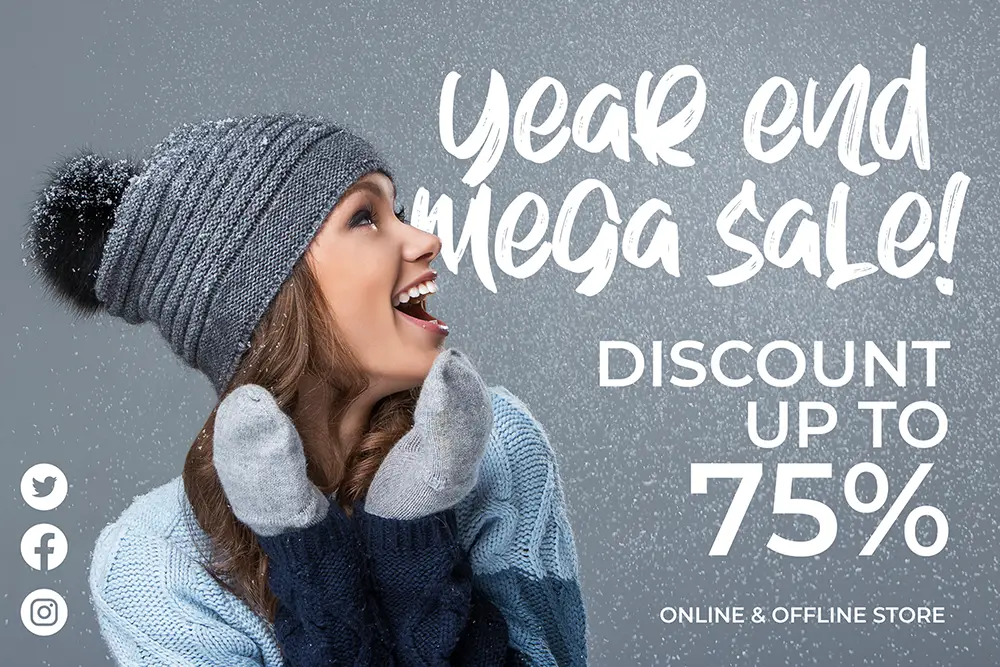
Every season tells a story — snowflakes in winter, blossoms in spring, golden leaves in autumn. But when your Seasonal Event Flyers don’t capture that story through design and typography, your message risks fading into the crowd.
For designers, freelancers, and brand owners, flyers are the heartbeat of every seasonal campaign — they’re fast, emotional, and designed to convert. The challenge? Picking fonts that match the spirit of the season while keeping your brand voice consistent. The right typography turns simple text into a visual invitation — one that feels like the event itself.
That’s why today we’ll explore proven fonts for Seasonal Event Flyers that can instantly elevate your layouts, attract attention, and drive better engagement no matter the season.
A flyer’s success depends on how well it connects with emotion and urgency. Seasonal campaigns — like Christmas, Valentine’s, or Summer Festivals — live and die by how instantly they capture mood.
The right font brings consistency between your visuals, copy, and brand identity.
For instance, a script font evokes warmth and sincerity during the winter holidays, while a display or layered font delivers vibrant energy during spring or summer events. According to WebDesignerDepot’s Typography Fundamentals Guide (source), designers who understand typographic emotion can increase engagement rates by more than 40% across printed materials and social graphics.
Your audience doesn’t just see fonts — they feel them. A font’s curve, stroke weight, or letter spacing subtly changes how people respond to your message.
Think of fonts as emotional amplifiers for your Seasonal Event Flyers. They visually translate your theme long before your audience reads a single line.
These curated fonts from Figuree Studio’s catalog are designer-tested, emotion-driven, and perfect for year-round campaigns.
Winter Dreams brings coziness and charm to winter and holiday campaigns. Perfect for greeting cards, hot cocoa stalls, or Christmas pop-ups — this font feels like warm lights in December.
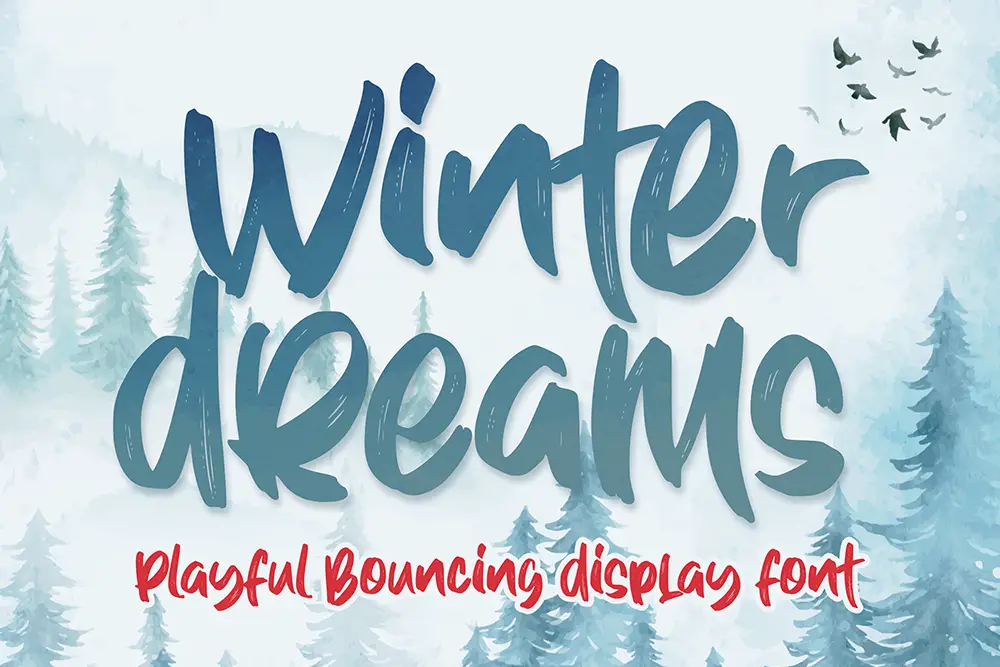
Perfect Love is ideal for Valentine’s flyers or charity galas. Its lovely curves communicate care, making your message feel intimate and heartfelt.
Kids Zone instantly brightens summer or school festival flyers. The layered color effect adds fun and creativity — perfect for family events or children’s workshops.
The Barethos adds a “freshly baked” vibe. Great for food markets, autumn harvests, and culinary festivals. Pair it with soft color palettes to emphasize warmth.
Nightfall works beautifully for New Year’s Eve flyers or nightlife promotions. Its bold script style conveys celebration and movement — ideal for city-based events.
Shutter Breathing captures natural beauty — excellent for spring or eco-themed flyers. The hand-brushed look gives a touch of authenticity.
Retro Young brings nostalgia to your seasonal campaigns. Use it for retro summer fairs or throwback concerts that crave vintage energy.
Magic Dreams fits perfectly for children’s events, Easter campaigns, or playful brand promotions. The whimsical shape keeps things light and fun.
Hadejah turns luxury winter events into timeless memories. Perfect for elegant gala invites, gift cards, or New Year celebration flyers.
Mouth Beast makes your Seasonal Event Flyers bold and fearless. It’s your go-to for music festivals, outdoor markets, and energetic pop-up events.
A few simple pairings can help you design flyers that instantly communicate theme and professionalism.
Here’s what seasoned designers swear by when crafting Seasonal Event Flyers:
When we analyze high-performing Seasonal Event Flyers, one truth stands out: emotion sells better than logic. Typography is the bridge that connects emotion to design. It’s what makes a Christmas sale feel cozy, a summer event feel free, and a New Year countdown feel electric.
Our creative team at Figuree Studio learned that fonts shape how people remember your event. You don’t just choose a font — you choose the story it tells. Whether you’re designing for clients or your own brand, let the emotion drive your typography, not the other way around.